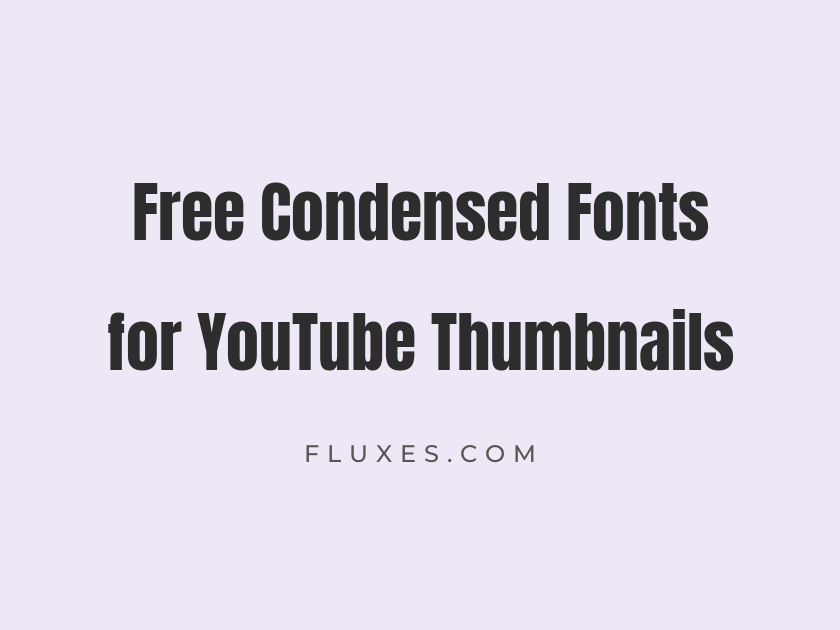
47 Best Free Condensed Fonts for YouTube Thumbnails
YouTube thumbnails live or die in a split second of scrolling, which is exactly why condensed fonts dominate the platform. A tall, narrow letterform lets you cram a punchy headline into a small horizontal space without shrinking the type into mush, and bold condensed weights hold up even when a thumbnail is squeezed down to a phone screen. The free condensed fonts on Google Fonts below cover everything from the blocky, in-your-face style popularized by Impact-style headlines to sleeker, more editorial condensed sans faces for creators who want a calmer, more polished look.
1. Anton
Anton is the closest free equivalent to the heavy, ultra-bold condensed lettering that has powered viral thumbnails for years. Its letterforms are so dense and confident that a single word fills a frame with authority, which is exactly why it shows up constantly in reaction videos, drama channels, and clickbait-adjacent titles that need instant visual weight.
It struggles in long sentences since the heaviness gets exhausting to read past a few words, so save it for short, punchy phrases rather than full headlines.
2. Bebas Neue
Few free fonts are as synonymous with thumbnail design as Bebas Neue. It is all caps, tightly spaced, and rigidly geometric, giving titles a poster-like presence without any lowercase softness to dilute the impact.
Because it has only one weight, designers often pair it with a heavier condensed display font for emphasis words and use Bebas Neue for the supporting text. It remains one of the most searched fonts for YouTube branding for good reason.
3. Oswald
Oswald translates the classic condensed gothic style of old European posters into a clean, modern sans that reads well in both title case and full caps. It carries mixed-case text more gracefully than most condensed display fonts, which makes it a strong pick for thumbnails that need a slightly more conversational tone than shouty all-caps headlines.
Its range of weights, from thin to bold, gives it enough flexibility to also work as a channel logotype or lower-third title.
4. Fjalla One
Fjalla One has a sturdy, no-nonsense character that sits between Oswald and Bebas Neue in personality. It is dense enough to punch through a busy thumbnail image but has enough warmth in its curves to avoid feeling cold or generic.
5. Archivo Narrow
Archivo Narrow brings a more restrained, editorial feel to condensed type. It reads cleanly at small sizes, which makes it a smart choice for the secondary text on a thumbnail, like a subtitle line under a bigger headline.
6. Barlow Condensed
Barlow Condensed keeps the friendly, rounded personality of the full Barlow family while trimming the width down for headline duty. It feels approachable rather than aggressive, which suits vlogs, lifestyle content, and tutorial channels that want bold text without looking like a tabloid.
7. Barlow Semi Condensed
This is the gentler sibling to Barlow Condensed, narrow enough to save space but wide enough to stay easy on the eyes across longer titles. It works nicely for thumbnails that lean more informative than sensational.
8. Roboto Condensed
Roboto Condensed carries the neutrality of Google’s default sans into a tighter width, making it a dependable workhorse for tech reviews, news recaps, and channel branding where legibility matters more than personality.
9. PT Sans Narrow
PT Sans Narrow has a slightly rounder, more humanist feel than most condensed sans fonts, which softens its impact just enough for storytelling or documentary-style content. It can look a touch muddy at very small preview sizes, so keep headline text large.
10. Yanone Kaffeesatz
Named after a coffee grounds pattern, Yanone Kaffeesatz has a light, airy condensed structure even in its bolder weights. It brings a slightly European, design-forward feel that stands out from the usual thumbnail font choices.
11. Saira Condensed
Part of a large variable superfamily, Saira Condensed offers a clean, contemporary condensed sans with excellent weight range, from light captions to heavy headline type, all within one consistent design.
12. Saira Semi Condensed
Slightly wider than its Condensed sibling, this cut is useful when a headline needs to feel a little less squeezed while still saving horizontal space.
13. Saira Extra Condensed
This is the narrowest member of the Saira family, built for situations where you need maximum characters in minimum width, such as a long callout phrase running along the bottom edge of a thumbnail.
14. Stardos Stencil
MISSION IMPOSSIBLE CHALLENGE
Cut with stencil gaps, this variant adds a militant, industrial edge that suits challenge videos, survival content, or anything with a gritty, high-stakes tone.
15. Teko
First Impressions Of The New Update
Teko has a taller, more elegant condensed structure than most of its peers, with a light touch even in bolder weights. It leans toward a modern, slightly futuristic feel that pairs well with tech, gaming, and app review content.
Because it stays fairly slender even at heavier weights, give it a strong background contrast or a bold outline treatment so it does not get lost against busy thumbnail imagery.
16. Khand
SPEEDRUN WORLD RECORD ATTEMPT
Khand
Khand has a squared-off, mechanical rigidity that feels at home in gaming and esports thumbnails. Its wide range of weights makes it easy to build hierarchy between a big headline and smaller supporting text.
17. Squada One
TOP SECRET UNBOXING REVEAL
Squada One
Squada One rounds its corners just enough to feel friendly rather than harsh, while staying tight and condensed. It has a slightly bouncy, informal energy that suits unboxing videos and lighter entertainment content.
18. Staatliches
DO NOT TRY THIS AT HOME
There is a rubber-stamp, stencil-adjacent quality to Staatliches that gives it a raw, DIY energy. It only comes in one weight, but that weight is loud enough to anchor an entire thumbnail on its own.
19. League Gothic
The Untold Story Of Season One
League Gothic
A revival of an old American gothic condensed classic, League Gothic has the vintage newspaper-headline feel that suits history channels, true crime recaps, and documentary-style storytelling.
20. Francois One
Behind The Scenes Exclusive Footage
Francois One
Francois One is narrow, tall, and quietly confident, with just enough personality in its curves to avoid feeling like a generic condensed default. It reads well at moderate sizes but can thin out visually if scaled too small.
21. Cabin Condensed
My Morning Routine Explained
Cabin Condensed
Cabin Condensed keeps the humanist warmth of the broader Cabin family, making it a comfortable choice for lifestyle, wellness, and personal vlogging thumbnails that want bold type without an aggressive tone.
22. Six Caps
FINAL ROUND SHOWDOWN
Six Caps
As the name suggests, this is one of the narrowest caps-only fonts on Google Fonts, useful when a headline word needs to be enormous but the horizontal space is extremely tight.
23. Antonio
Everything Changes After This
Antonio
Antonio has become a favorite among designers looking for a Bebas Neue alternative with more nuance. Its variable weight range means the same family can cover a delicate subtitle and a shouting headline.
The letterforms feel a touch more refined and less mechanical than Bebas Neue, giving thumbnails a slightly more premium, editorial edge.
• Styles: 7 weights (Thin to Bold)
24. Economica
Quick Tips For New Creators
Economica
Economica is slim and efficient, true to its name, and works nicely for shorter callout text rather than full headline duty since its lighter strokes can thin out at large display sizes.
25. Rajdhani
SYSTEM UPGRADE COMPLETE TONIGHT
Rajdhani has a squared, technical geometry that suits gaming, tech, and futuristic content. It sits somewhere between condensed and standard width, giving it a bit more presence than the tightest options on this list.
26. Advent Pro
A Calmer Way To Vlog
Advent Pro
For creators who want condensed type without the aggressive tone, Advent Pro offers a slender, almost elegant alternative. It suits calmer lifestyle, beauty, or slow-living content where a shouty headline font would feel out of place.
• Language support: Latin, Latin Extended, Cyrillic, Cyrillic Extended, Greek
27. Unica One
THE FUTURE OF GAMING IS HERE
Unica One
Unica One has a geometric, faintly retro-futuristic quality that gives it a distinct identity among condensed sans faces. It only ships in one weight, so use it for short, high-impact phrases rather than long titles.
28. Encode Sans Condensed
Comparing Every Model Side By Side
Encode Sans Condensed
Part of a large, versatile superfamily, Encode Sans Condensed offers clean, neutral letterforms with an extensive weight range, making it well suited to tech comparison and review thumbnails that need both bold headlines and smaller labels.
29. Encode Sans Semi Condensed
What I Learned After One Year
Encode Sans Semi Condensed
This slightly wider sibling keeps the same tidy structure while easing up on the squeeze, useful when a title runs a little longer and needs more breathing room.
30. IBM Plex Sans Condensed
Testing The Newest Tech Gadgets
IBM Plex Sans Condensed
IBM Plex Sans Condensed brings a crisp, corporate-but-not-boring quality to condensed type. It reads confidently in tech, business, and productivity content where a slightly more polished look matters.
31. Fira Sans Condensed
Building This From Nothing
Fira Sans Condensed
Fira Sans Condensed carries the same warmth and legibility that made the broader Fira Sans family popular for interfaces, translated into a tighter width that still holds up well in longer thumbnail titles.
32. Fira Sans Extra Condensed
SHOCKING RESULTS REVEALED TODAY
Fira Sans Extra Condensed
When Fira Sans Condensed still is not narrow enough, this extra condensed cut squeezes further while keeping the letters legible, a handy option for wordier headline treatments.
33. Ubuntu Condensed
Setting Up My New Studio
Ubuntu Condensed
Ubuntu Condensed keeps the distinctive, slightly quirky curves of the Ubuntu family in a narrower footprint, giving thumbnails a modern, open source-flavored personality that stands apart from the usual grotesque condensed choices.
• Language support: Latin, Latin Extended, Cyrillic, Cyrillic Extended, Greek, Greek Extended
34. Sarpanch
ULTIMATE CHALLENGE ACCEPTED
Sarpanch
Sarpanch is heavy, blocky, and built for maximum shout. Its bold weights make it a strong candidate for challenge videos and competition content where the headline needs to compete with a busy, high-energy thumbnail image.
35. Racing Sans One
FASTEST LAP EVER RECORDED
Racing Sans One
As its name implies, Racing Sans One borrows the slanted urgency of motorsport livery lettering. It is a natural pick for car content, speed challenges, or anything that wants a sense of momentum baked into the type itself.
36. Iceland
SYSTEM FAILURE AT MIDNIGHT
Iceland
Iceland has a cold, technical, almost sci-fi quality that suits horror, tech glitch, or dystopian-themed thumbnails. It is thin enough that it needs a strong color contrast or stroke to stay readable over photo backgrounds.
37. Asap Condensed
Quick Review Before You Buy
Asap Condensed
Asap Condensed is straightforward and highly legible, a safe, versatile choice when the goal is clarity over drama, particularly for review and how-to thumbnails aimed at a broad audience.
38. Turret Road
RETRO GAMING NIGHT LIVE
Turret Road
Turret Road has a slightly retro, mechanical rhythm reminiscent of old dashboard displays and arcade signage, which makes it a fun fit for retro gaming or nostalgia-themed channels.
• Styles: 6 weights (Extra-Light to Extra-Bold)
39. Wire One
A Minimal Desk Setup Tour
Wire One
Wire One is thin, narrow, and understated, better suited to minimalist tech or design-focused thumbnails than to shouty clickbait. It needs a bold background treatment since the strokes are delicate at a glance.
40. Titillium Web
Explaining The Update In Plain Language
Titillium Web
Titillium Web leans semi-condensed with a friendly, geometric structure that started life as a collaborative type design project. It works well for tech explainer and news-style thumbnails that want bold type without feeling overly aggressive.
• Styles: 11 styles (6 weights plus italics)
41. Stint Ultra Condensed
VINTAGE ARCADE CHALLENGE
Stint Ultra Condensed
This is a novelty pick with real character: an extremely narrow, high-contrast display font with a vintage circus poster feel. Use it sparingly for a single accent word rather than a full headline, since its decorative strokes get hard to read at small sizes.
42. Ranchers
GONE WRONG IN FIVE MINUTES
Ranchers
Ranchers has a hand-cut, slightly rough edge to its bold condensed letterforms, giving thumbnails an energetic, almost comic-book punch. It suits prank, reaction, and challenge content that wants a bit of visual chaos.
43. Alumni Sans
Class Is Officially Back In Session
Alumni Sans
Alumni Sans is a genuinely versatile condensed workhorse, with an enormous weight range from hairline to black plus italics, making it useful for everything from a delicate subtitle to a full-bleed headline within one cohesive family.
44. Alumni Sans Collegiate One
VARSITY CHAMPIONS REACT LIVE
Alumni Sans Collegiate One
This variant leans into a collegiate, varsity-letter aesthetic, ideal for sports recaps, school-themed content, or anything wanting that letterman-jacket energy.
45. Alumni Sans Pinstripe
OPENING DAY HIGHLIGHTS
Alumni Sans Pinstripe
Fine pinstripe detailing inside each letterform gives this cut a sporty, uniform-inspired texture, best used at larger sizes where the pattern stays visible rather than turning to visual noise.
46. Alumni Sans Inline One
TEAM TRYOUTS DAY ONE
Alumni Sans Inline One
The inline treatment hollows out each stroke for a clean, athletic look that pairs nicely with the rest of the Alumni Sans family for layered, multi-weight thumbnail titles.
47. Odibee Sans
LEVEL UP YOUR SETUP TODAY
Odibee Sans
Odibee Sans has a chunky, pixel-adjacent charm that feels right at home in gaming thumbnails, especially for retro or indie game content where a slightly playful, digital tone fits the subject matter.
Pairing and Using Condensed Fonts on Thumbnails
Stick to one condensed display font for the headline and let a plainer condensed sans, like Roboto Condensed or Barlow Condensed, carry any smaller supporting text.
Heavy black weights read best with a stroke or drop shadow around the letters so they stay legible over photo backgrounds.
Keep headlines short. Condensed fonts are built to save space, but three or four punchy words will always outperform a full sentence crammed into a corner.
Test your thumbnail at a small size before publishing, since most viewers will see it shrunk down in a feed or on a phone screen rather than full size.
Whether the goal is a shouting, high-contrast headline or a calmer, more editorial title, there is a free condensed Google Font suited to the job, and swapping between a few of these across a channel’s video history is an easy way to keep a consistent, recognizable thumbnail style without ever touching a paid font license.